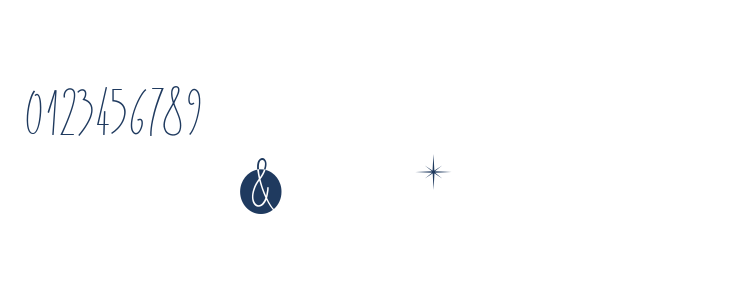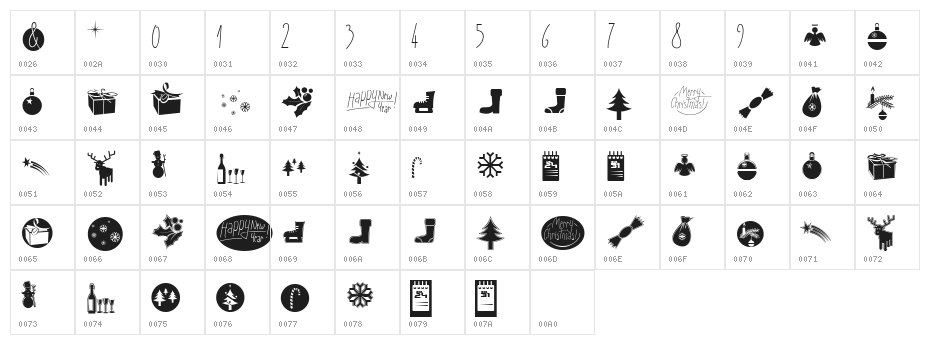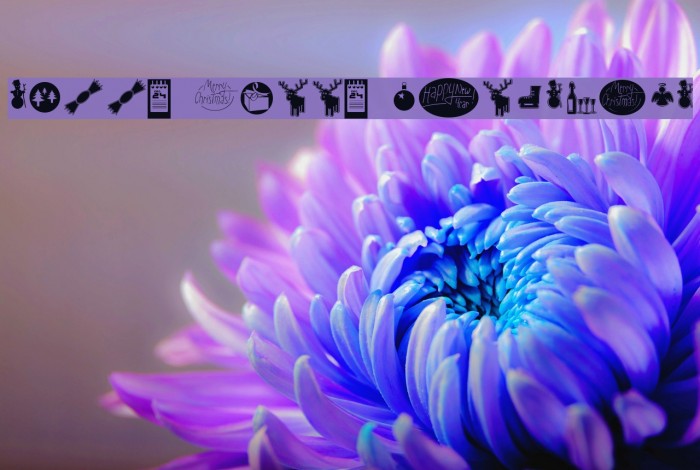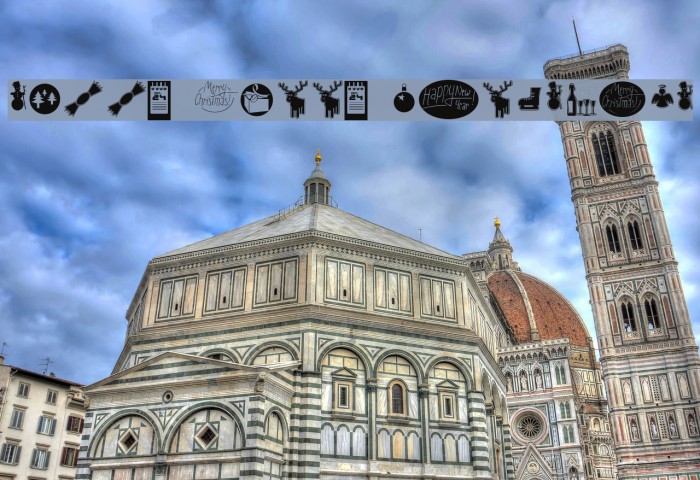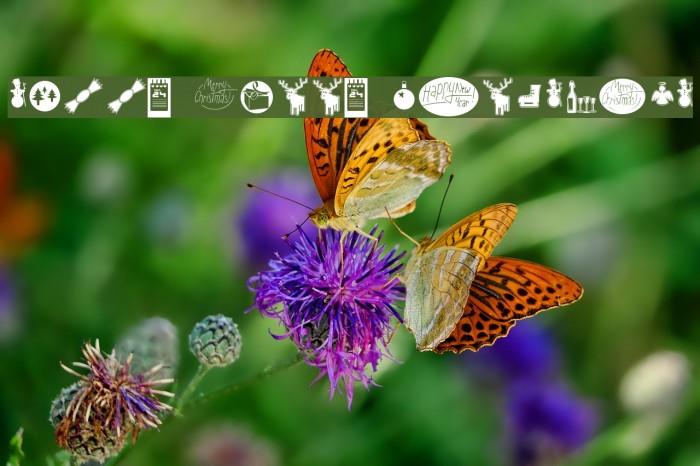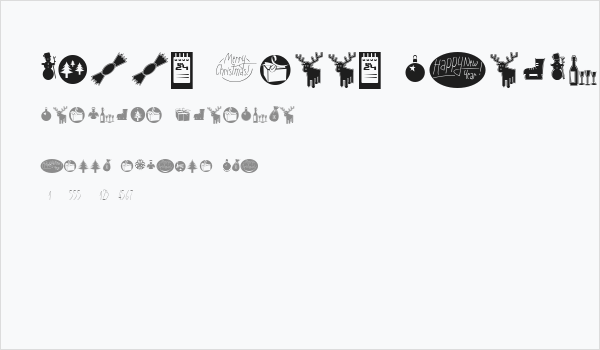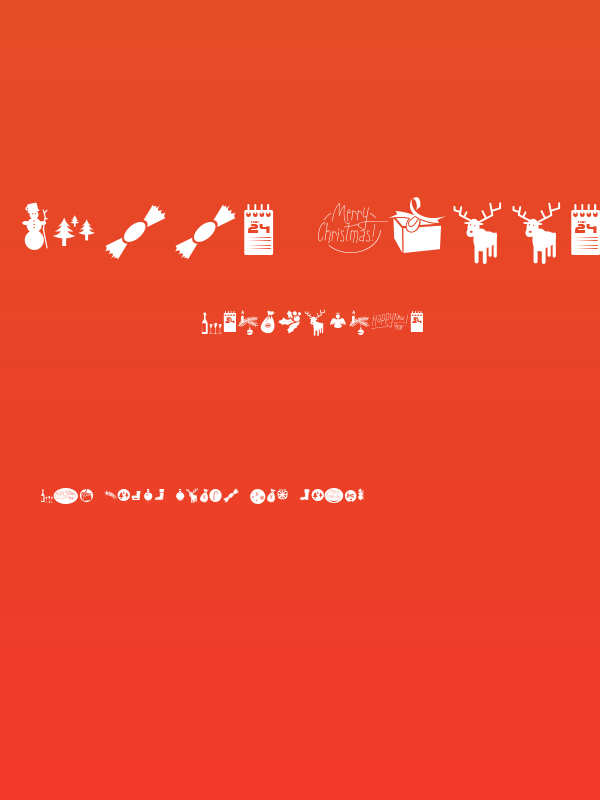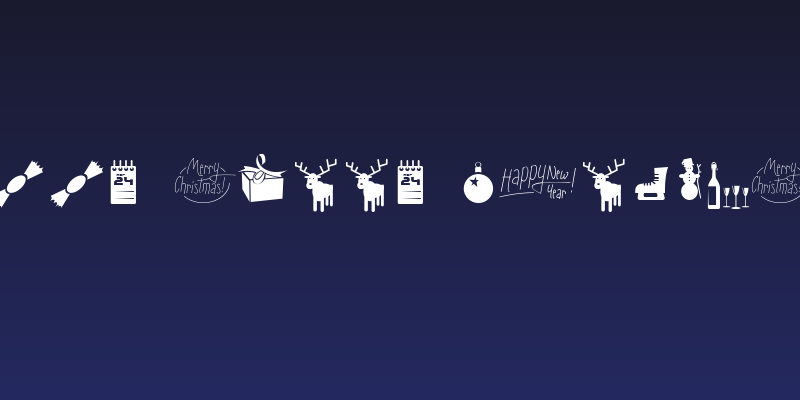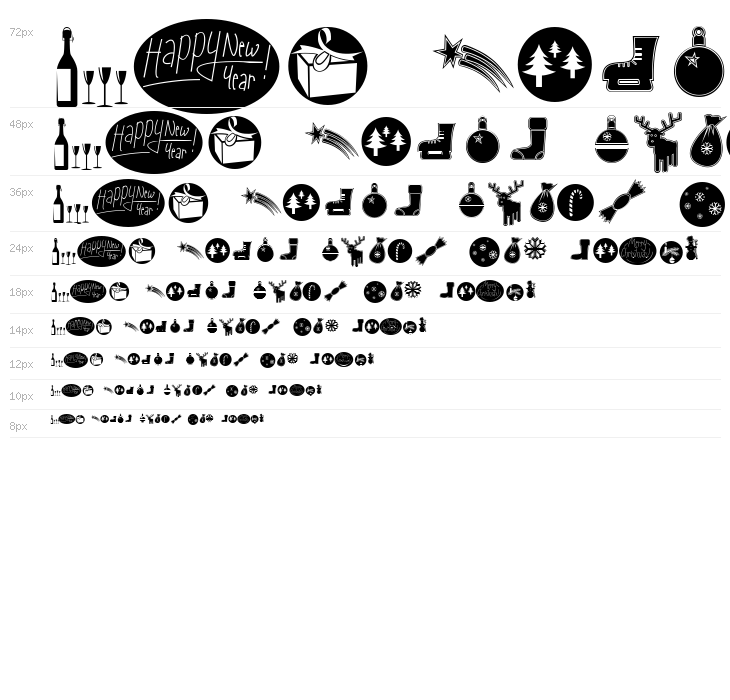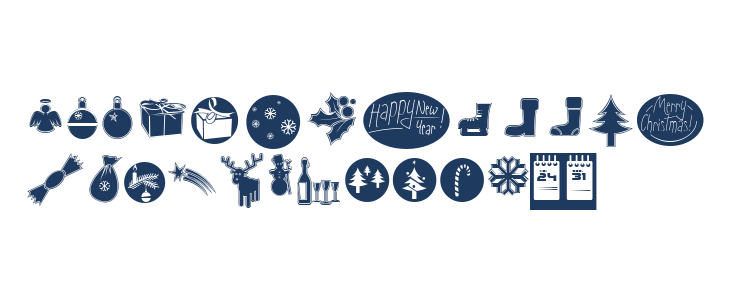
Sunny Merry Christmas Font
Sunny Merry Christmas Description
This is not a traditional font but rather a collection of festive Christmas-themed icons and symbols. The design includes various holiday elements such as ornaments, gifts, holly, snowflakes, and Christmas trees, all rendered in a playful and decorative style. The icons are bold and filled with solid black, making them suitable for high-contrast applications. The numbers are slender and slightly whimsical, adding a touch of elegance to the otherwise playful set. This collection is perfect for adding a festive touch to holiday cards, invitations, and seasonal decorations.
| Use Case | Logos, Decorative elements |
| Proposed Projects | Ideal for holiday cards, festive invitations, seasonal decorations, and Christmas-themed graphics. |